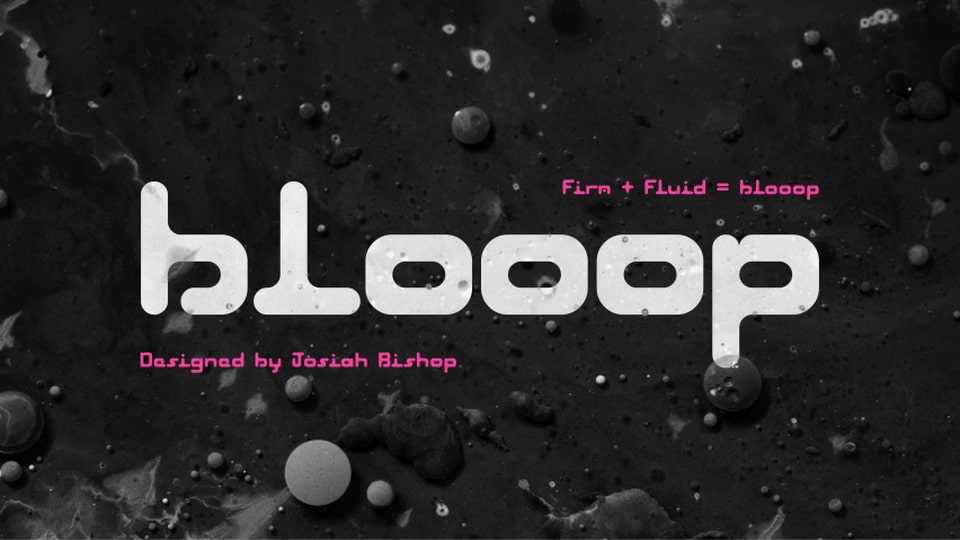
Download Booop font, a rounded geometric display typeface with a retro futuristic vibe. Whether it’s for logo designs, posters, branding, publications, signage, Booop font will impress any project with its simple yet powerful style.
Designer: Josiah Bishop